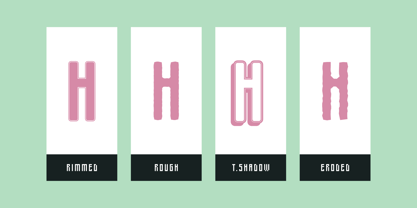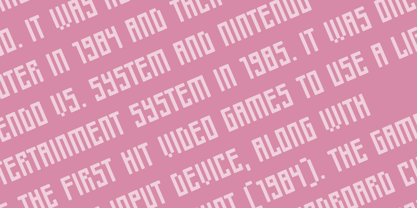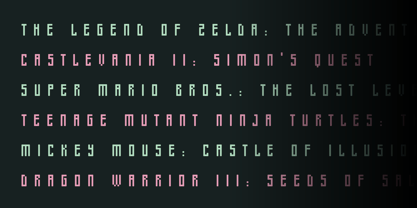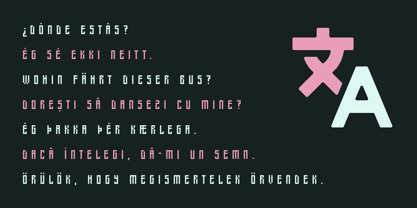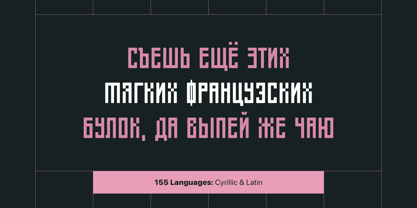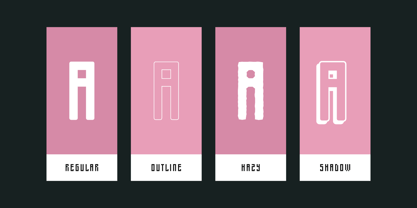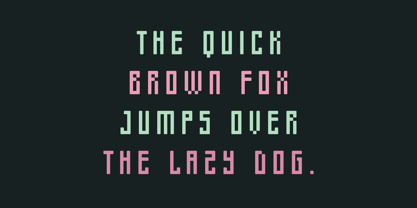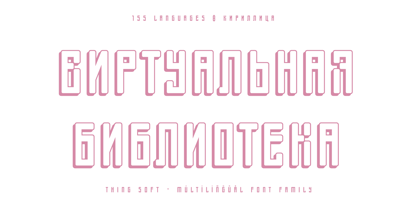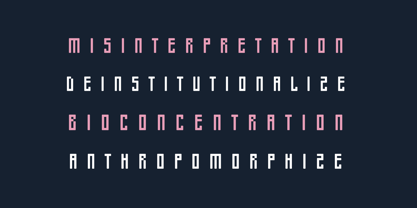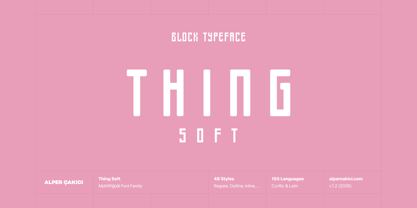
Thing Soft
The Thing Soft Font Family was designed by Alper Çakıcı and published by AlperCakici. Thing Soft contains 48 styles and family package options. More about this family
Thing Soft is a versatile rounded block typeface family inspired by retro screen graphics, arcade aesthetics, industrial signage, and early digital lettering. While it carries the visual spirit of pixel-era typography, Thing Soft is not bound to a strict pixel grid, allowing for smoother curves, softer geometry, and more natural proportions suited to modern design needs.
Built with tall, condensed letterforms and a distinctive rounded geometric structure, Thing Soft delivers a bold yet friendly visual presence that remains highly legible at both display and medium text sizes. Its softened construction makes it especially effective for contemporary gaming projects, technology branding, posters, packaging, editorial headlines, sports graphics, merchandise, social media content, user interfaces, and digital products.
The family includes 48 styles, ranging from clean essentials such as Regular, Italic, Outline, Inline, and Shadow to expressive textured variations including Aged, Brush, Chalk, Dry, Edgy, Grainy, Gritty, Hazy, Noise, Pencil, Rough, Rusty, Sketchy, Traced, Worn, and multiple shadowed combinations. This extensive stylistic range allows designers to move seamlessly between clean futuristic layouts and distressed retro-inspired visuals while maintaining a consistent typographic voice.
Supporting both Latin and Cyrillic scripts, Thing Soft provides coverage for 155 languages and contains 420 glyphs, making it suitable for international branding and multilingual design projects.
Whether you're creating a retro gaming identity, a modern tech interface, a bold poster campaign, or a distinctive logo system, Thing Soft offers the flexibility, personality, and visual impact needed to make designs stand out.